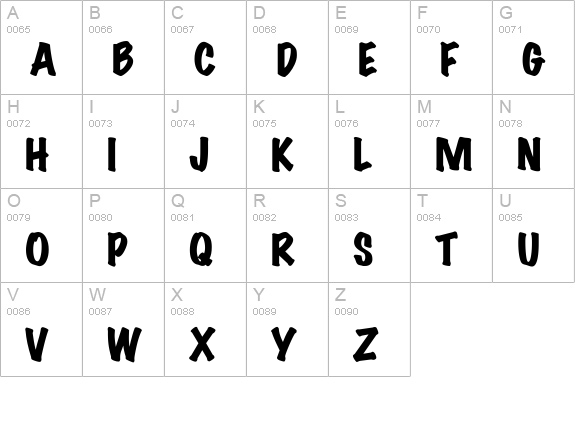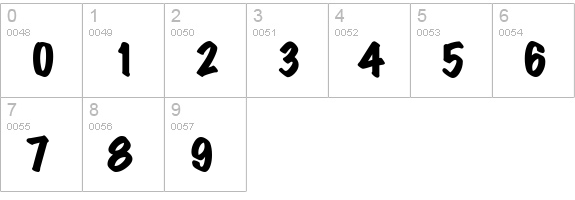
Marker Felt Wide is a distinctive, extended-width variant in the Marker typeface family \xE2\x80\x94 well suited to design and typography projects.
Marker Felt Wide is a playful and whimsical font that adds a touch of fun to any design project. With its bold and rounded strokes, this font is perfect for creating eye-catching headlines, posters, and more. The wide spacing between letters gives it a modern and unique look that is sure to grab attention. Best of all, Marker Felt Wide is free to download at FontsMarket.com, making it accessible to anyone looking to add a creative twist to their work. So why wait? Download Marker Felt Wide today and let your imagination run wild!